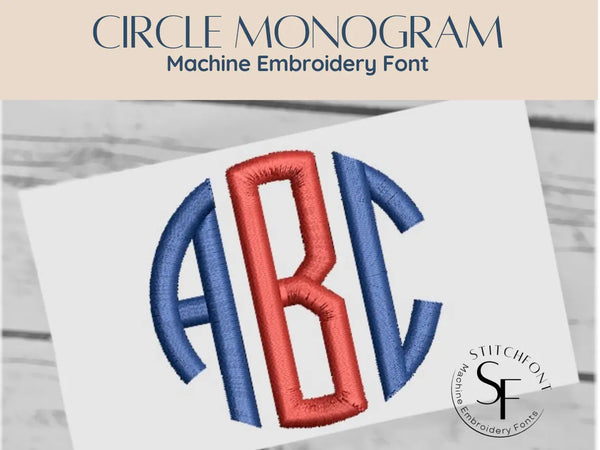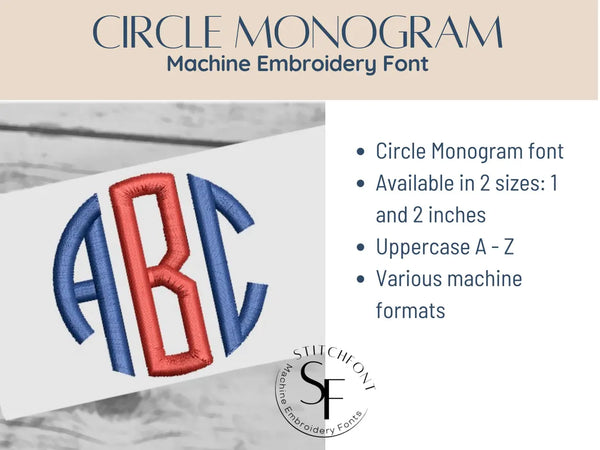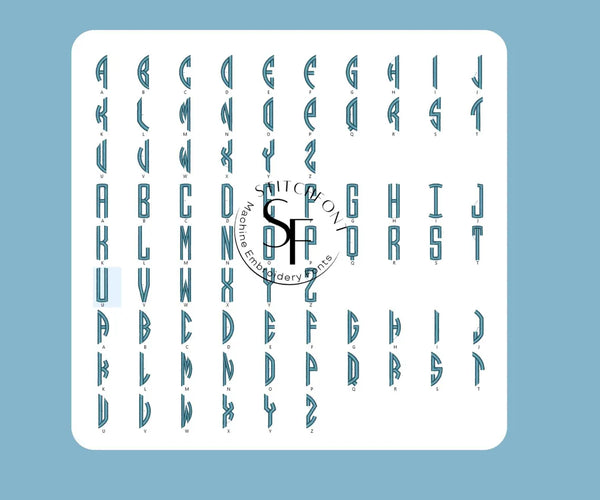
⭕ Circle Monogram Embroidery Font – Classic Style with Modern Stitch Precision ⭕
Bring timeless charm to your monograms with the Circle Monogram Font – a bold, structured satin stitch design perfect for personalized embroidery that stands out. Its rounded symmetry and crisp finish make it ideal for gifts, home linens, and custom apparel.
* Satin Stitch finish
* Uppercase A–Z only
* Center, Left, and Right letters for proper monogram layout
* Versatile and stylish monogram shape
* Balanced, polished look
* Crisp stitching for professional results